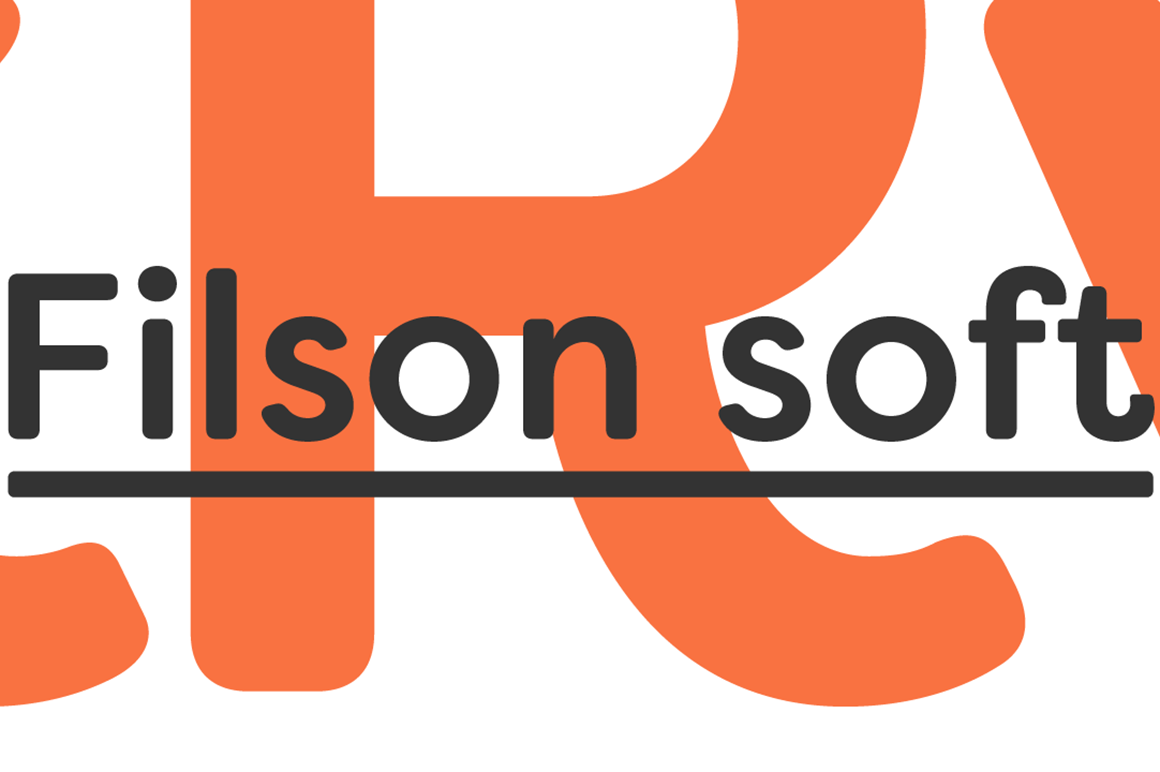
Filson Soft -Complete Font Family
FILSON SOFT is a new geometric sans font family with a lot of charm. The font family offers 16 variations (8 weights plus italics).
Filson Soft is the rounded version of the popular Filson Pro. At first sight, the main feature of Filson Soft are the distinctive letters ‘K’, ‘Q’ and especially ‘R’ that make the font family very elegant. With its rounded terminaisons, this font family is also perfect for original titles and will give you future creations a nicely friendly aspect.
But with all these originals features, Filson Soft is highly legible and quite versatile. Its large x-height, even performs nicely in small sizes. Filson Soft comes in 8 weights - Thin, Light, Book, Regular, Medium, Bold, Black, Heavy with a professional range of Opentype functions such as lining and oldstyle figures, stylistic alternates, case sensitive forms, localized forms, stylistic set, arrows and f-ligatures.
For better typographic control, Filson Soft also includes an OpenType class kerning with thousands of kerning pairs.
Filson Soft covers more than 80 languages Afrikaans, Albanian, Asu, Basque, Bemba, Bena, Bosnian, Bulgarian, Catalan, Chiga, Congo Swahili, Cornish, Croatian, Czech, Danish, Embu, English, Esperanto, Estonian, Faroese, Filipino, Finnish, French, Galician, Ganda, German, Gusii, Hungarian, Icelandic, Indonesian, Irish, Italian, Jola-Fonyi, Kabuverdianu, Kalaallisut, Kalenjin, Kamba, Kikuyu, Kinyarwanda, Latvian, Lithuanian, Luo, Luyia, Machame, Makhuwa-Meetto, Makonde, Malagasy, Malay, Maltese, Manx, Meru, Morisyen, North Ndebele, Norwegian Bokmål, Norwegian Nynorsk, Nyankole, Oromo, Polish, Portuguese, Romanian, Romansh, Rombo, Rundi, Russian, Rwa, Samburu, Sango, Sangu, Sena, Shambala, Shona, Slovak, Slovenian, Soga, Somali, Spanish, Swahili, Swedish, Swiss German, Taita, Teso, Turkmen, Vunjo, Welsh, Zulu.